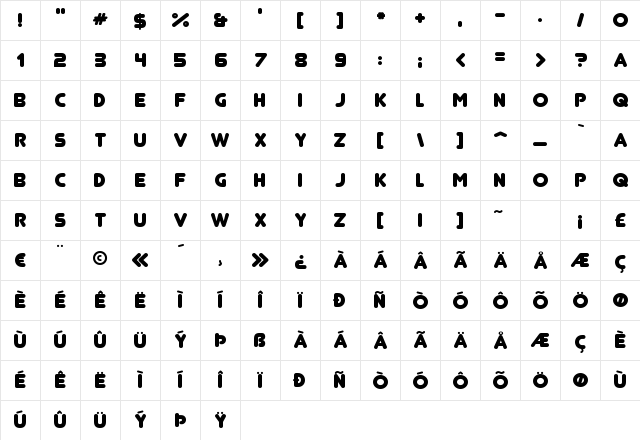
Junegull Regular Free Font
Junegull Regular
Junegull Family
Design Context for Junegull
Junegull is a composed and adaptable typeface that performs quietly and consistently across a wide range of design contexts.